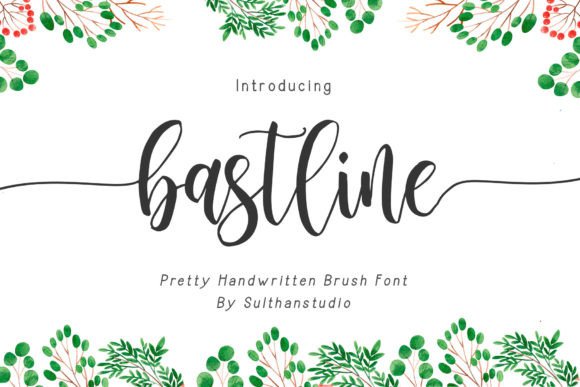
Dive into the realm of artistic expression with Bastline Font, a mesmerizing script font that captures the essence of handwritten elegance. Created by the talented Sulthan Studio, Bastline is not just a font; it's an artistic journey that transforms your digital creations into captivating works of art.
With its graceful curves and natural flow, Bastline mirrors the beauty of ink script writing, evoking a sense of intimacy and authenticity. It's the perfect companion for personal branding, adding a touch of sophistication and charm to your logos, business cards, and social media posts.
Fashion enthusiasts will adore Bastline's ability to elevate their designs. Its stylish appeal adds a touch of couture to fashion magazines, headers, and covers, making them visually stunning and unforgettable.
If you're a creative soul seeking unique ways to express yourself, Bastline is your muse. Its versatility knows no bounds, making it ideal for quotes, invitations, and other personal projects. Let your imagination run wild as you craft heartfelt messages adorned with Bastline's elegant script.
Unleash your inner artist and explore the endless possibilities of Bastline Font. Its captivating beauty and versatility will transform your digital creations into works of art, leaving a lasting impression on your audience. Embrace the allure of Bastline and let your creativity flourish today!